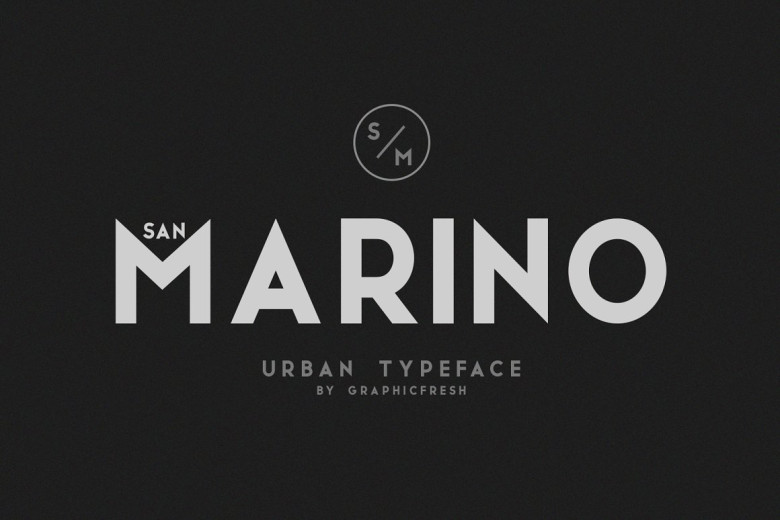
San Marino Font
San Marino was designed as an original sans serif font that features geometric shaped. This typeface boasts a modern, stylish and elegant aesthetic. OpenType features include an extended set of Western European characters.
San Marino Sans Serif Font